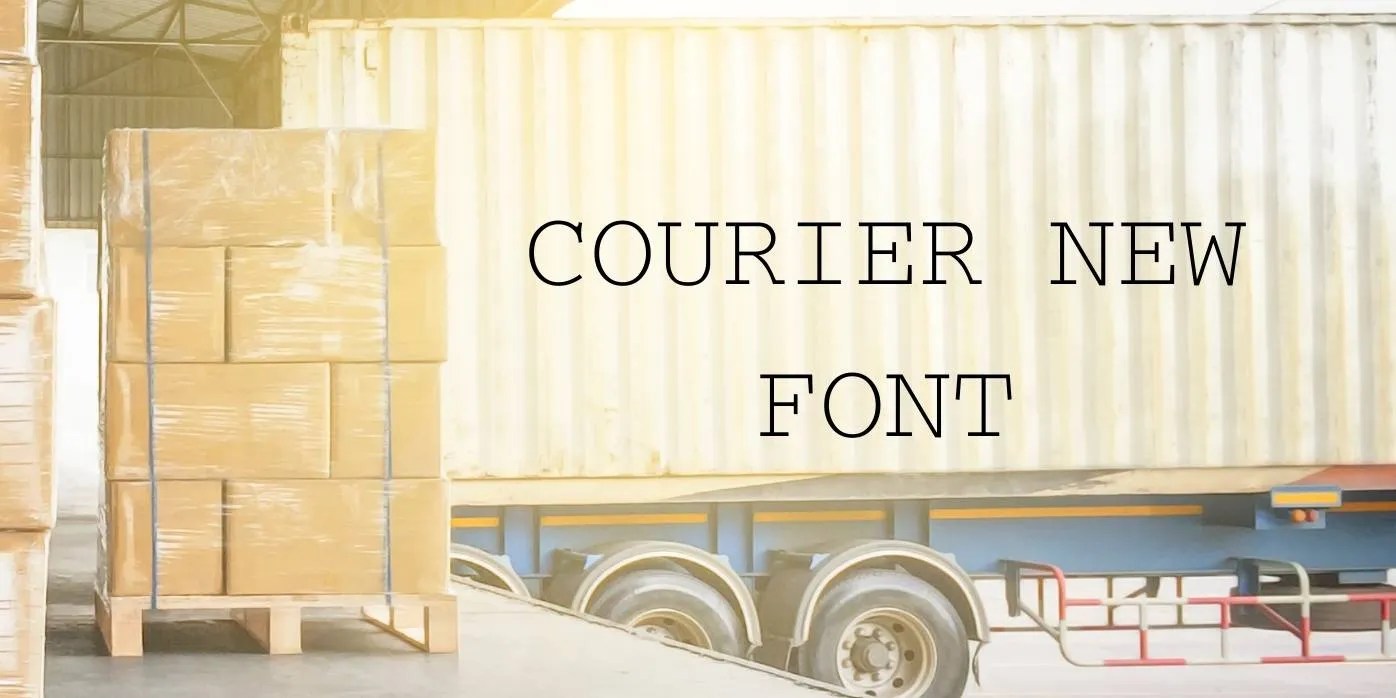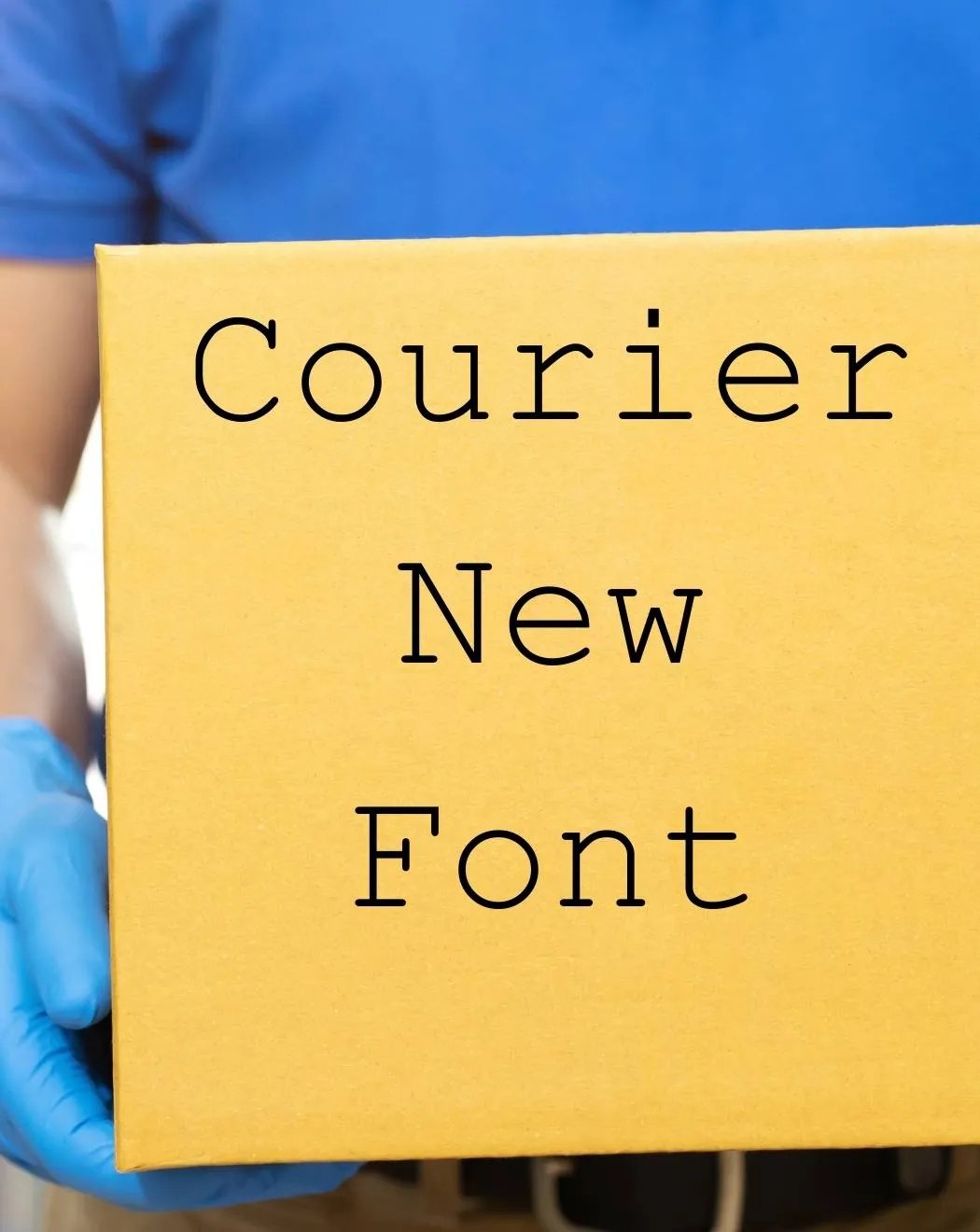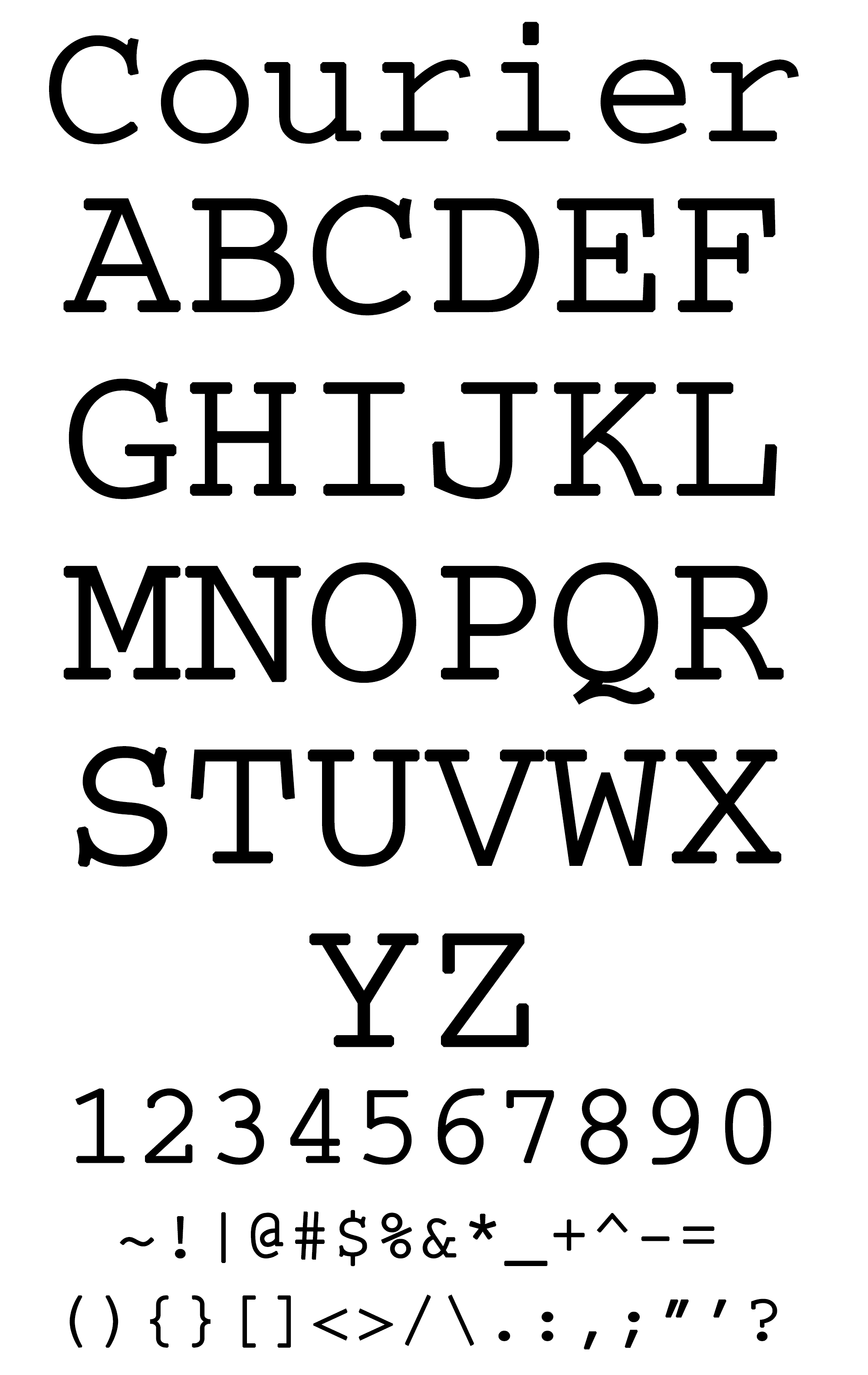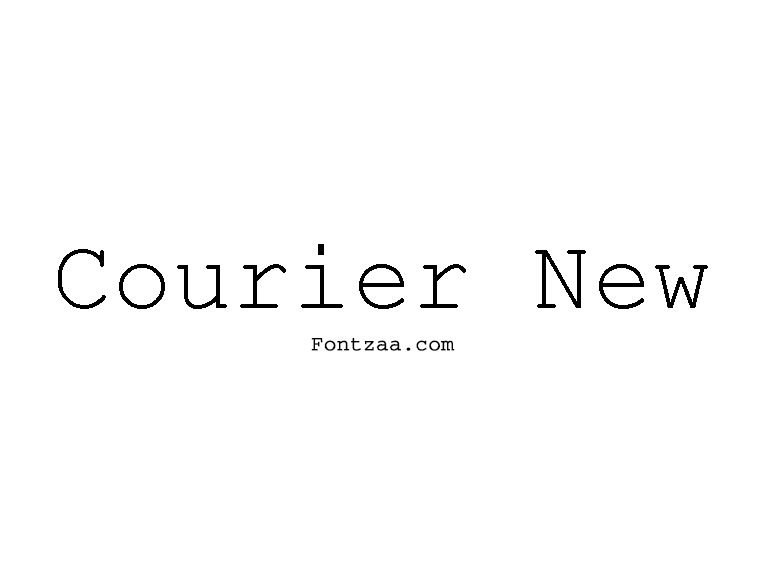
What Is A Courier Font . The typeface was almost named. Courier is a monospaced typeface designed by howard “bud” kettler, initially for ibm’s typewriters but adapted for use as a computer font. State department documents until 2004, and computer coding, it became “perhaps the most recognizable. It's a monospaced family, designed specifically for. Courier prime is a new take on ibm's courier which was designed in 1956 by howard kettler. Courier is a monospaced typeface for use in tabular material, technical documentation, and word processing. As courier was adopted as the typeface of choice for screenplays, u.s. By choosing courier, he bridges the.
State department documents until 2004, and computer coding, it became “perhaps the most recognizable. Courier prime is a new take on ibm's courier which was designed in 1956 by howard kettler. As courier was adopted as the typeface of choice for screenplays, u.s. Courier is a monospaced typeface designed by howard “bud” kettler, initially for ibm’s typewriters but adapted for use as a computer font. The typeface was almost named. By choosing courier, he bridges the. It's a monospaced family, designed specifically for. Courier is a monospaced typeface for use in tabular material, technical documentation, and word processing.
What Is A Courier Font The typeface was almost named. State department documents until 2004, and computer coding, it became “perhaps the most recognizable. Courier is a monospaced typeface for use in tabular material, technical documentation, and word processing. Courier prime is a new take on ibm's courier which was designed in 1956 by howard kettler. By choosing courier, he bridges the. The typeface was almost named. Courier is a monospaced typeface designed by howard “bud” kettler, initially for ibm’s typewriters but adapted for use as a computer font. It's a monospaced family, designed specifically for. As courier was adopted as the typeface of choice for screenplays, u.s.